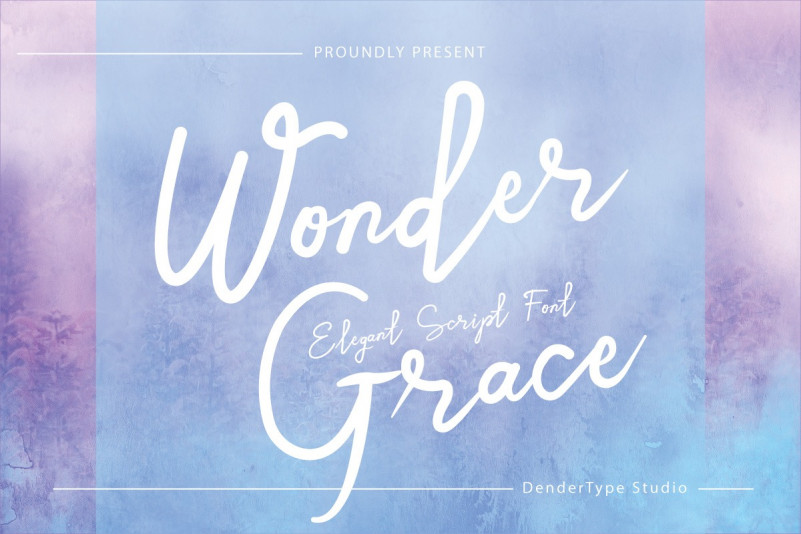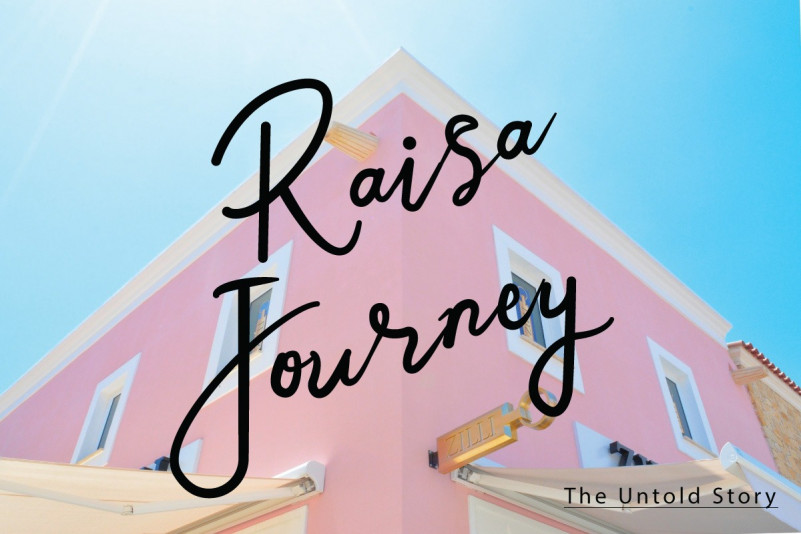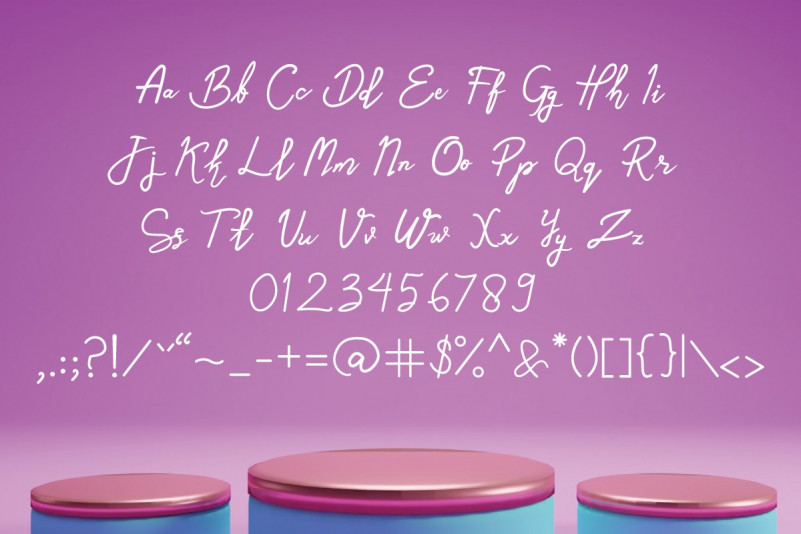
Relayfun Script Font
Relayfun is a hand-drawn font that really gives a real personal touch to your project. This mixed typeface gives a feeling of ‘entertaining’ something very quickly!
It is perfectly used for various purposes such as art quotations, branding, book titles/covers, clothing designs, editorial designs, labels, posters, product packaging, special events or anything else that requires hand taste.